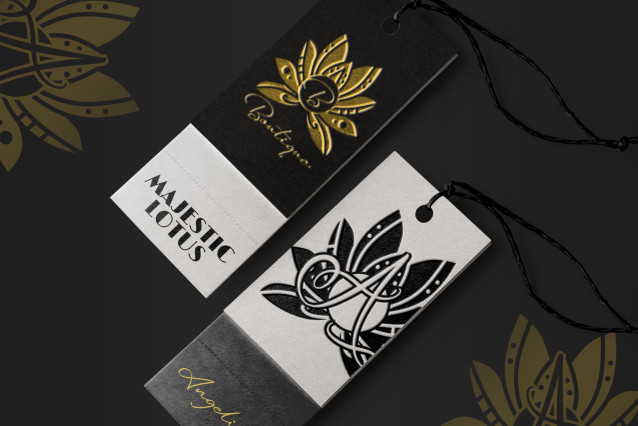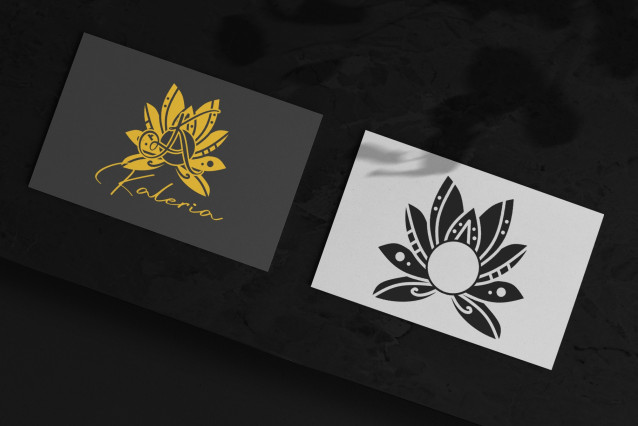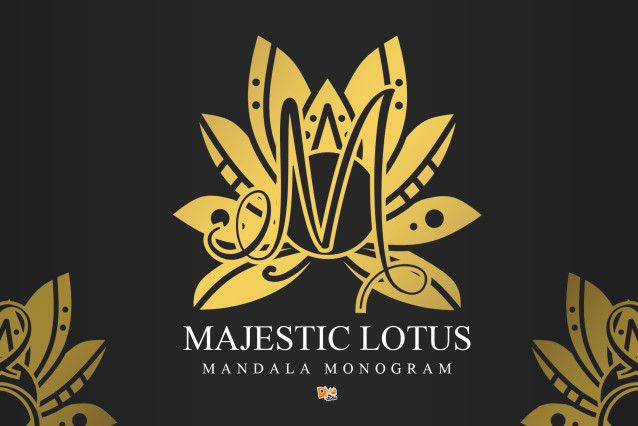
Majestic Lotus Mandala Monogram Font
Majestic Lotus Mandala Monogram is an intricate and elevated display font that embodies the symbolic grace of the lotus flower fused with regal mandala artistry. Designed to bring a majestic and luxurious flair to your projects, it’s perfect for wedding monograms, spiritual branding, elegant packaging, and high-end personalized creations.